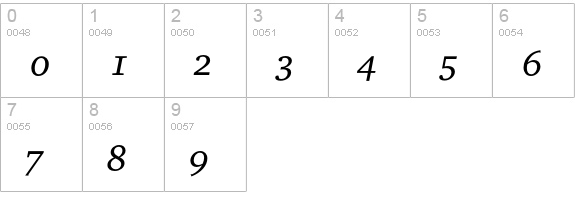
CharterEF-RegularItalicOsF Font Details
CharterEF-RegularItalicOsF is a versatile italic font that exudes elegance and sophistication. Its slanted design adds a touch of flair to any project while maintaining readability and clarity. This font is perfect for creating stylish headings, elegant invitations, and eye-catching designs. The best part? CharterEF-RegularItalicOsF is available for free download at FontsMarket.com. Now you can effortlessly elevate your projects with this beautiful font without any cost. Embrace the charm and versatility of CharterEF-RegularItalicOsF and bring a touch of sophistication to your designs today.